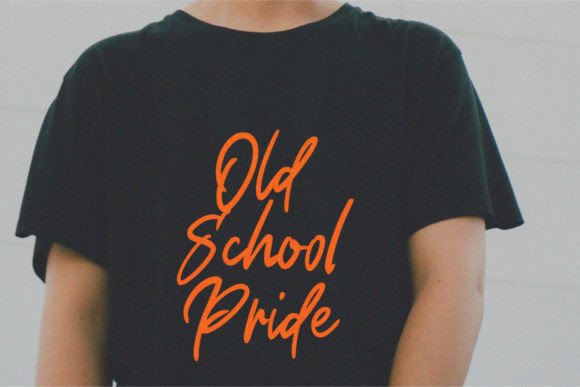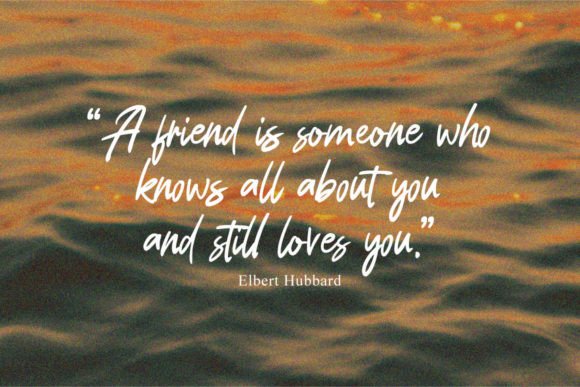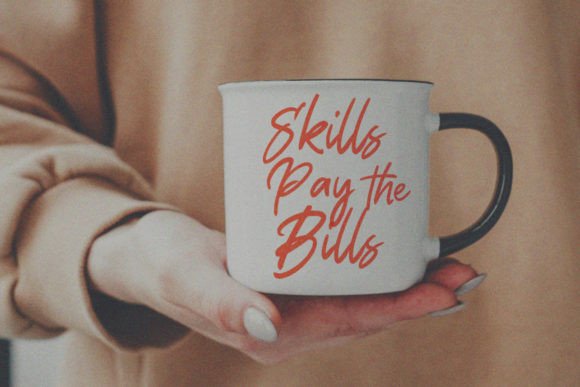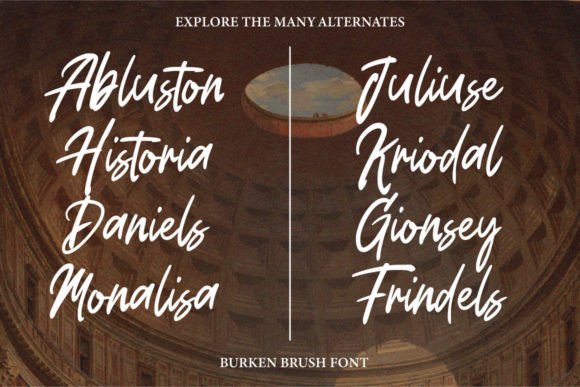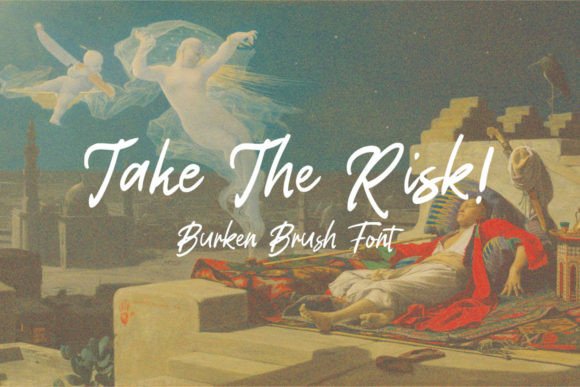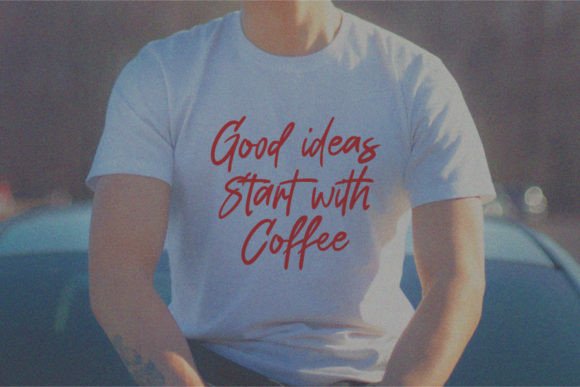
The Perfect Brush Stroke: Unlocking the Power of Burken Brush Font
As a designer, you know the thrill of that perfect creative moment – when every element falls into place, and your vision comes to life. It’s a feeling that’s hard to replicate, but with the right tools, it’s within reach. For me, that moment came when I discovered the Burken Brush Font, a modern and elegant script font that added a touch of sophistication to my designs.
Burken Brush Font is more than just a font – it’s a key to unlocking a world of high-end branding and fashion projects. Its unique letterforms and flowing curves create a stylish and distinctive look that sets your designs apart from the crowd. Whether you’re working on a luxury fashion campaign or a high-end branding project, Burken Brush Font is the perfect tool to elevate your designs to the next level.
Burken Brush Font Key Features
- Font Family: Burken Brush is a script font designed to mimic the look of hand-painted brushstrokes.
- Unique Characteristics: The font’s distinctive brushstrokes and subtle texture give it a warm, handcrafted feel, perfect for creating a personal or vintage look in designs.
- Font Style: Burken Brush is available in both regular and bold weights, allowing designers to achieve the desired level of emphasis and visual interest in their designs.
Burken Brush Font Review
I’ve had the chance to work with the Burken Brush Font, and I have to say it’s a unique addition to any design project. ✨ The hand-drawn feel and organic texture give it a charming, personal touch that’s hard to replicate with other fonts. ✨ The font’s imperfections and slight irregularities make it feel more human and less like a sterile, mass-produced typeface.
One of the things I appreciate most about Burken Brush is its versatility. ✨ It works well in a variety of contexts, from headings and titles to body text and even logos. The font’s expressiveness makes it easy to convey emotion and tone, which is especially useful in creative fields like advertising and publishing.
- ⚠️ Legibility can be a concern in smaller font sizes, as the letters may become too blurry or difficult to read.
- ⚠️ The font’s irregularities can sometimes make it challenging to align text perfectly, especially when working with multiple lines or paragraphs.
- ⚠️ The font’s character set is somewhat limited, which may not be ideal for projects that require a wide range of special characters or symbols.
Overall, I think the Burken Brush Font is a great choice for designers who want to add some personality and whimsy to their projects. While it may have some limitations, its unique charm and versatility make it well worth considering for the right project.
To get the most out of the Burken Brush Font, try using it in combination with other distressed or vintage fonts for a unique, eye-catching look.
Experiment with different font sizes and styles to create visual interest and emphasis in your design.
Use the Burken Brush Font to add a touch of personality and whimsy to your designs, from branding and marketing materials to social media graphics and more.